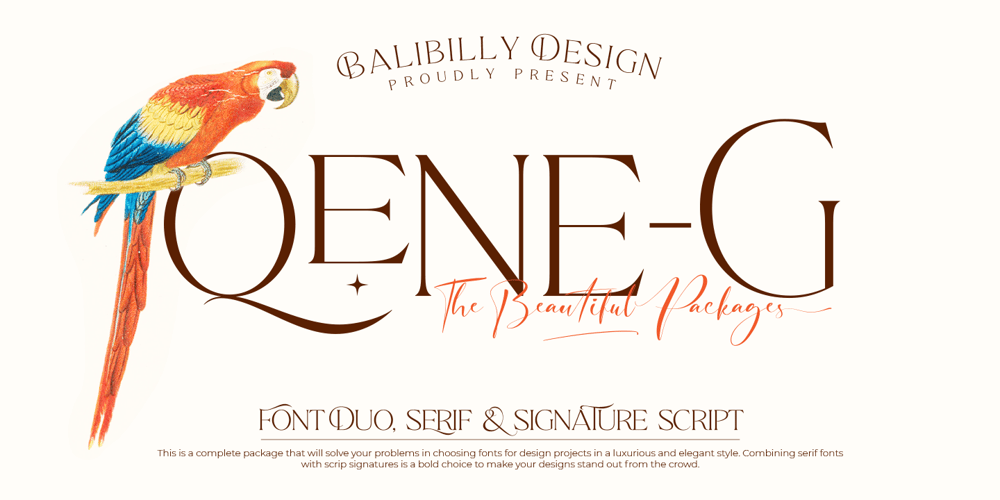
Qene G
Qene G font
Qene G Font Family was designed by I Wayan Bill Natih and published by Balibilly Design. Qene G contains 5 styles and family package options. Say hello to Qene-G Typeface,Qene-G is based on a problem that often occurs when I design, which is to combining typefaces in typographic art. I am pretty sure you also in this problem, so Qene-G Typeface comes to solve the problem.Qene-G is a complete package consisting of serif fonts and signature scripts. A careful approach makes this font give a luxurious and elegant taste to your project. Smooth curves, some flowy terminals, and flirty tails will make your project looks unique. The handmade signature combination emphasizes the style that you create in the natural beauty atmosphere.Qene-G consists of 5 families, they are Qene-G-Regular, Qene-G-Regular Italic, Qene-G-Outline, Qene-G-Outline Italic, and Qene-G-Script. You will get all caps letters with 2 styles that you can access via uppercase and lowercase buttons, charming script fonts, and tons of ligatures and stylistic alternates. Complete with Unicode and PUA which allows you to access all features without graphic design software. Your project will travel around the world with 131 languages ​​of this font.Qene-G is a strikingly versatile font, It is a bold choice for branding projects, fashion magazine imagery, social media text overlays, posters, website headers, and more. Let’s start creating stand out designs with this font.We are pleased to tell you about our newest product made with totality, please CLICK HERE